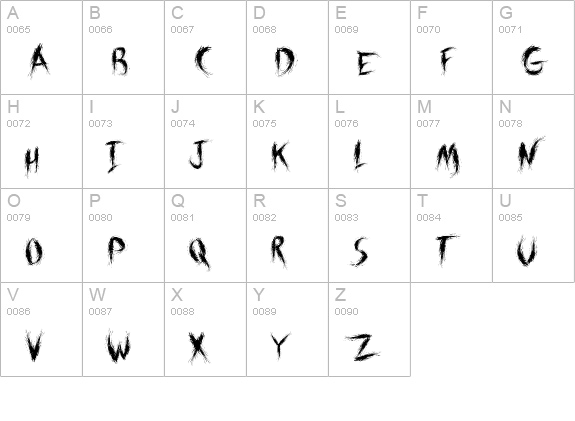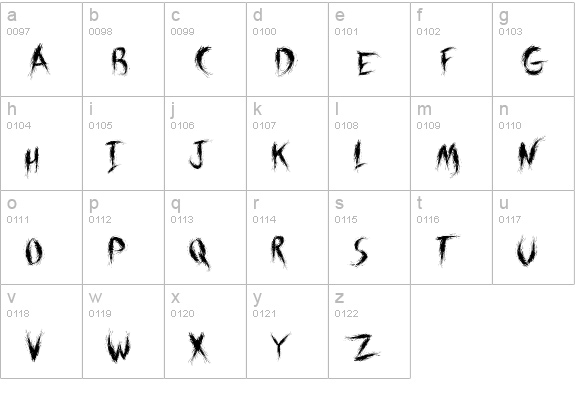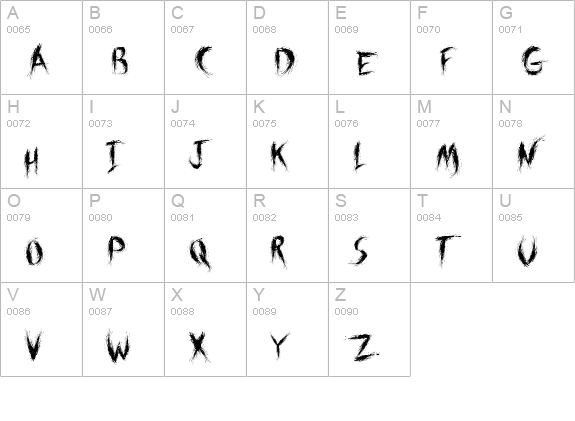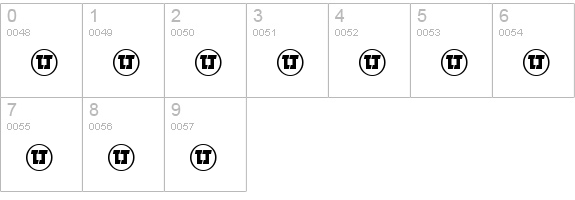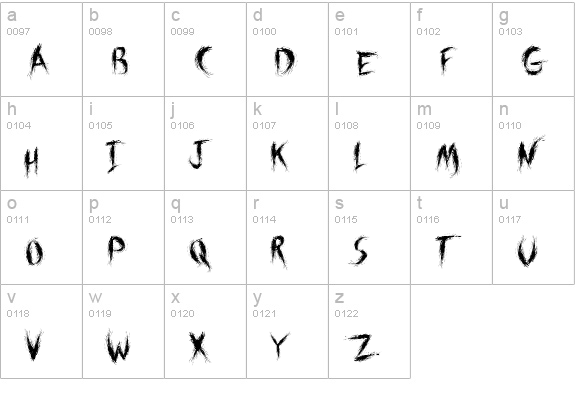
Forsaken font is a captivating and mysterious typeface that exudes an air of enchantment and intrigue. Its bold and intricate letterforms are inspired by the dark and haunting realms of fantasy and gothic literature. With its sharp edges and distinctive curves, Forsaken font commands attention and demands to be noticed. This font is the perfect choice for any project that requires a touch of darkness and a hint of the unknown. Whether you're designing a book cover, creating a logo, or adding an element of mystique to a website, Forsaken font will bring your vision to life. What sets Forsaken font apart is not only its stunning aesthetics but also the fact that it is freely available to download at FontsMarket.com. This means that you can easily access this captivating font without any cost, making it an excellent choice for designers, students, and anyone looking to add a touch of uniqueness to their work. Forsaken font is meticulously crafted with attention to detail, ensuring that each character is beautifully designed and visually striking. Its versatility allows it to be used in a variety of contexts, from headlines to body text, and it pairs exceptionally well with other fonts for added visual interest. Whether you're looking to create an atmosphere of mystery and suspense or simply want to make a bold statement, Forsaken font is the perfect choice. Its free availability at FontsMarket.com makes it accessible to all, allowing you to unleash your creativity without any limitations. So don't miss out on this opportunity to download Forsaken font and elevate your designs to new heights of allure and allure.